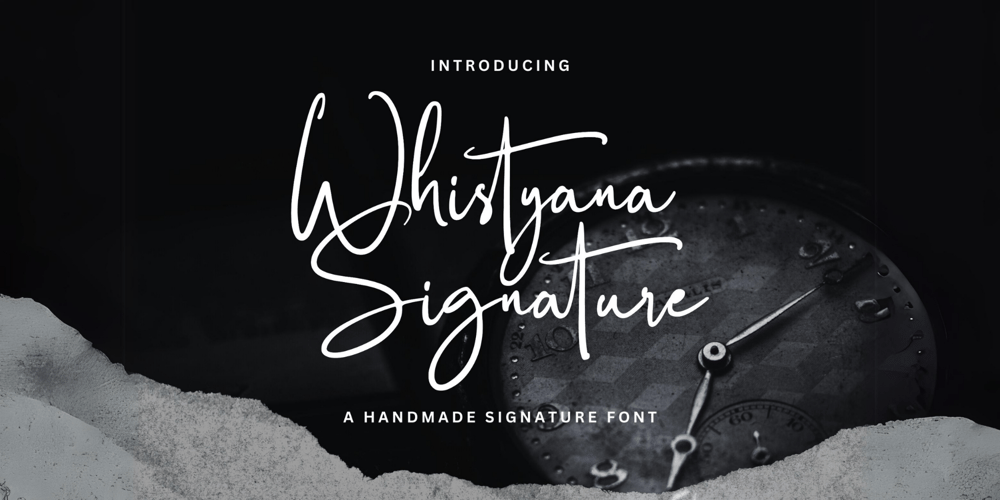
Whistyana Signature
Whistyana Signature font
Whistyana Signature Font Family was designed by Ian Mikraz and published by IanMikraz Studio. Whistyana Signature contains 1 styles and family package options. Whistyana is a charming handmade signature font that adds a personal touch to any project. With its authentic and genuine feel, this font is perfect for creating designs that require a sense of individuality and uniqueness.Whether you’re working on personal branding, greeting cards, or social media posts, Whistyana’s warm and inviting strokes will infuse your work with a personal, human touch. Its versatile nature and distinctive appeal make it an excellent choice for designers seeking to create genuine and one-of-a-kind visuals that resonate with authenticity and sincerity.Introducing Whistyana, the handmade signature font that brings a personal and unique touch to your designs. With its genuine and authentic strokes, Whistyana is perfect for adding a warm and inviting feel to various projects, from personal branding to heartfelt greeting cards.Its versatility and distinctive charm make it an ideal choice for designers looking to create visuals that reflect sincerity and individuality. Infuse your designs with the heartfelt touch of Whistyana and create visuals that speak directly to the heart.